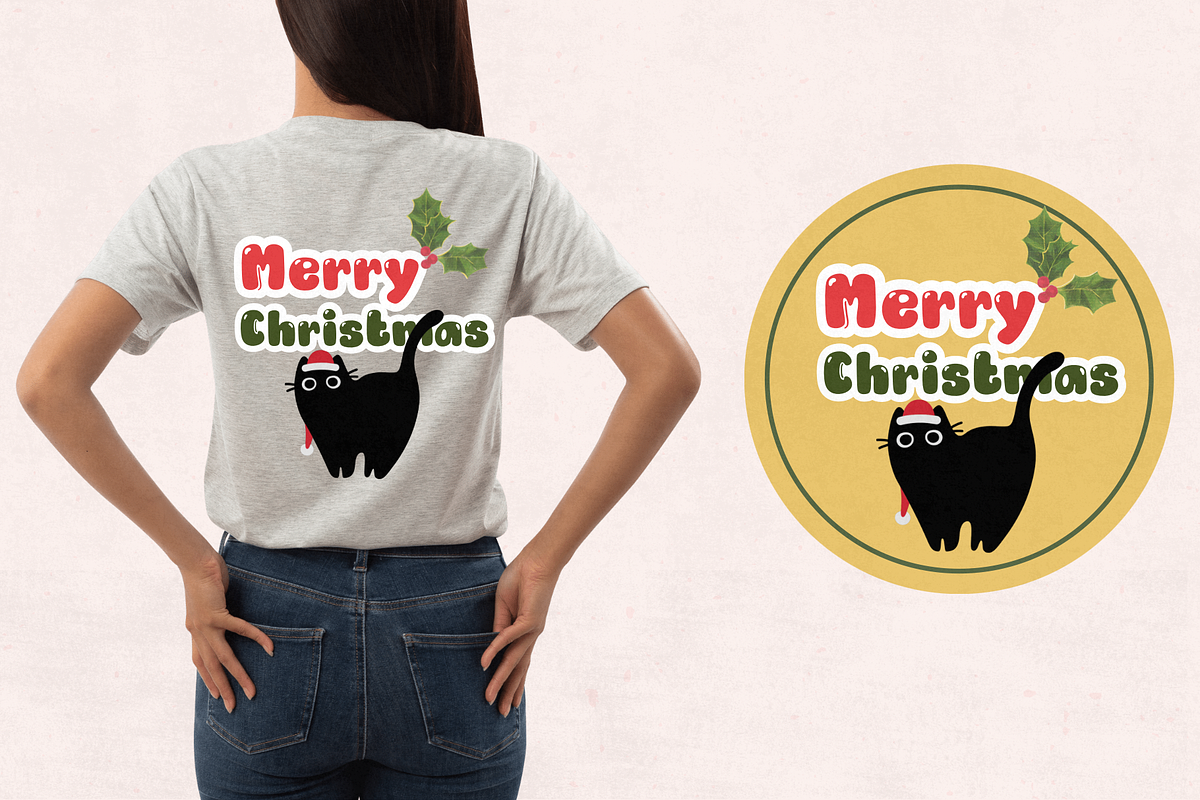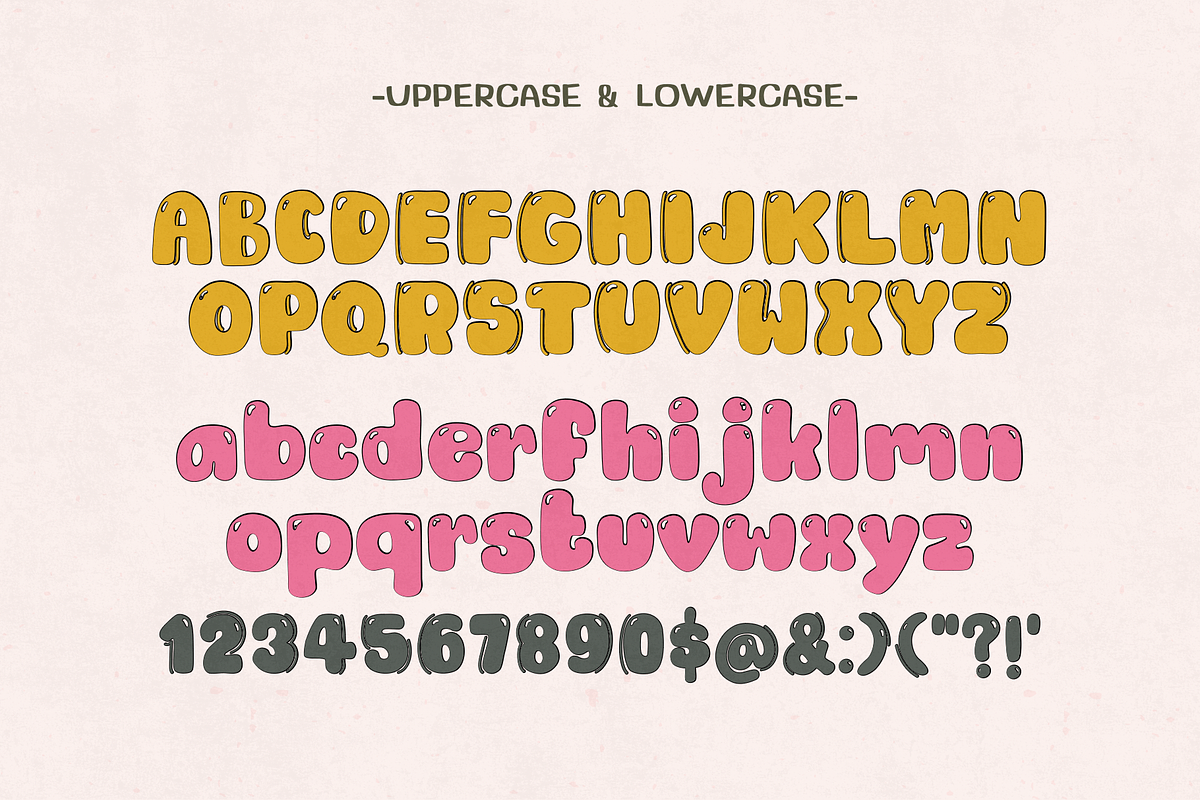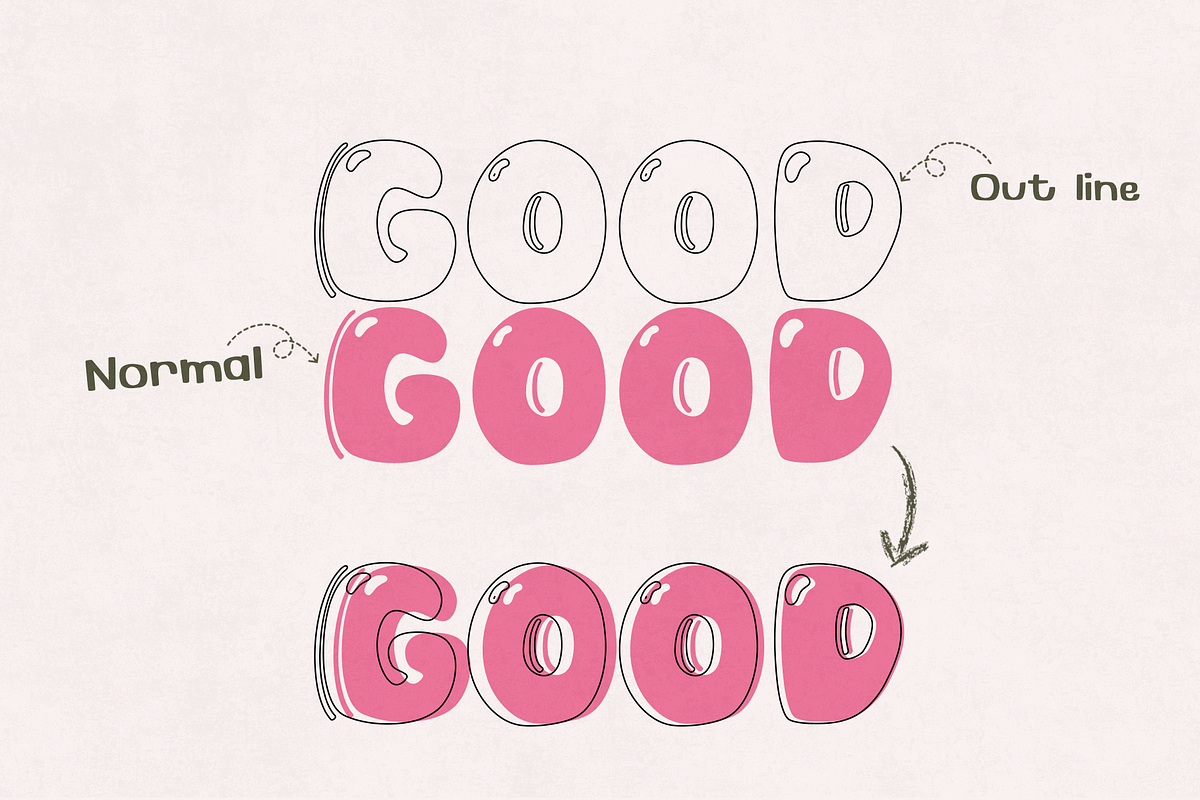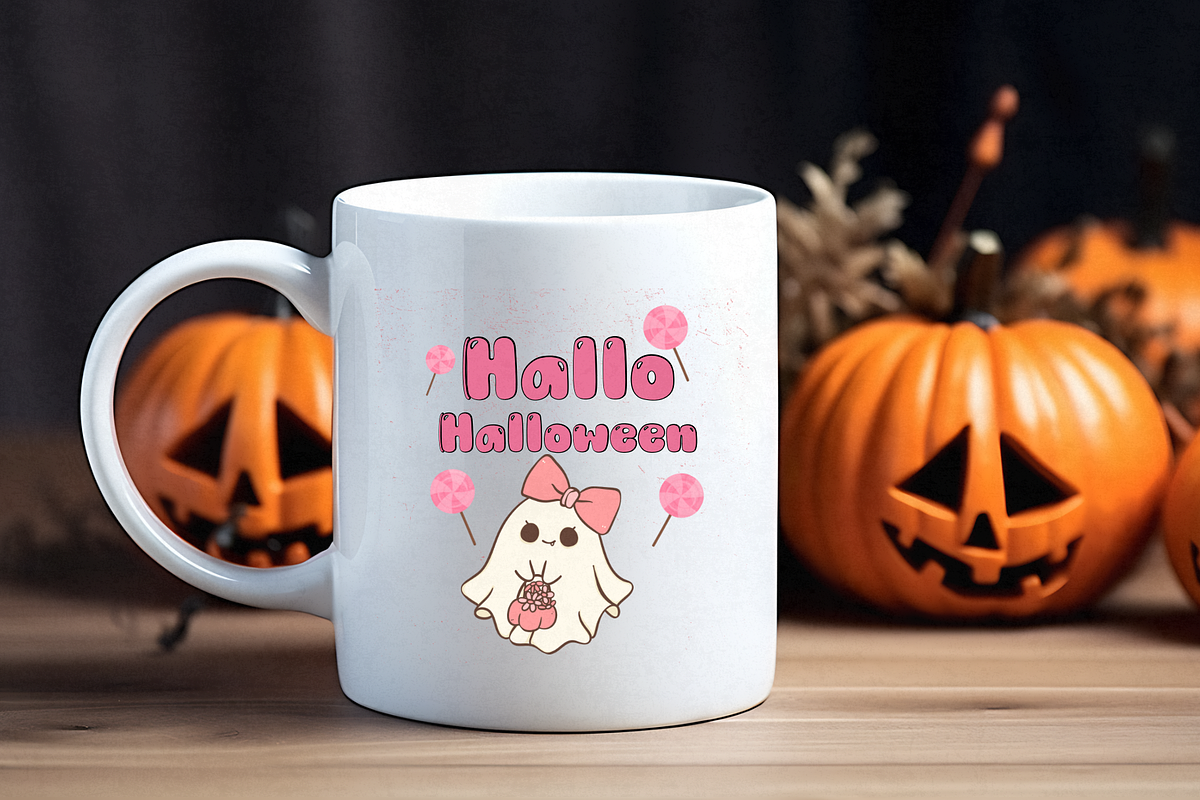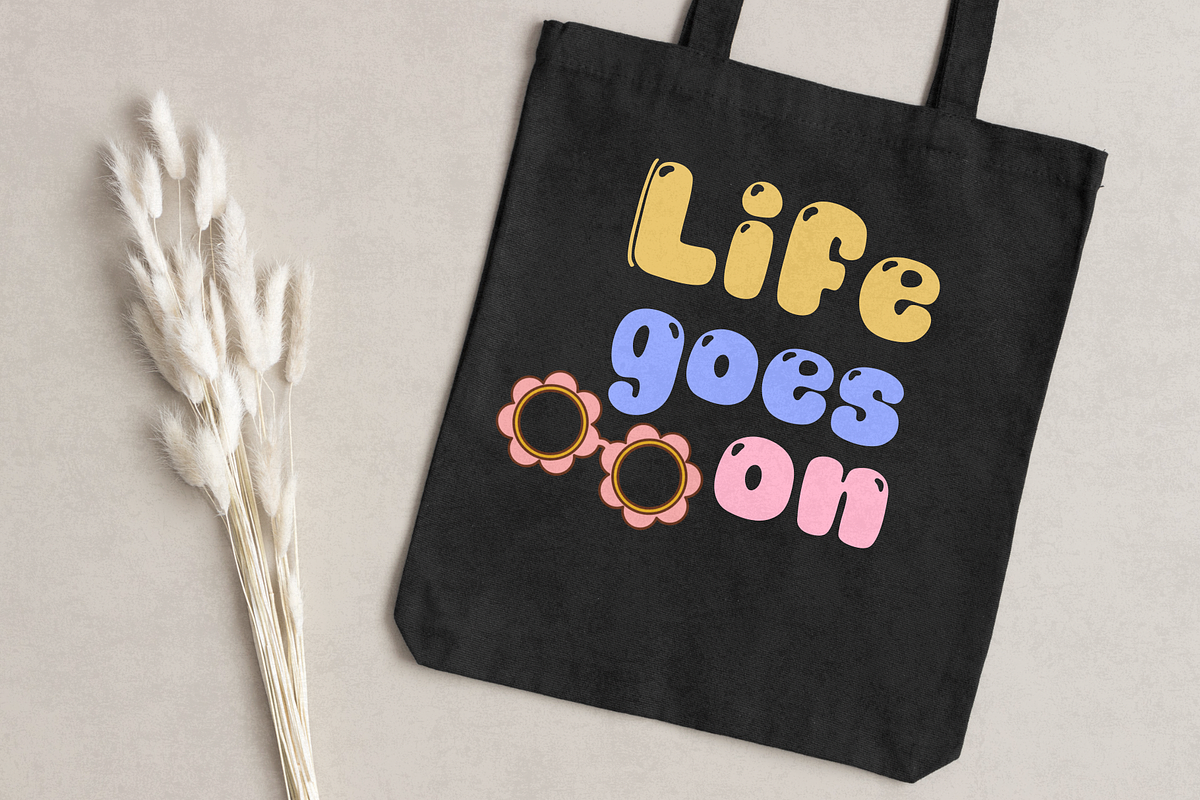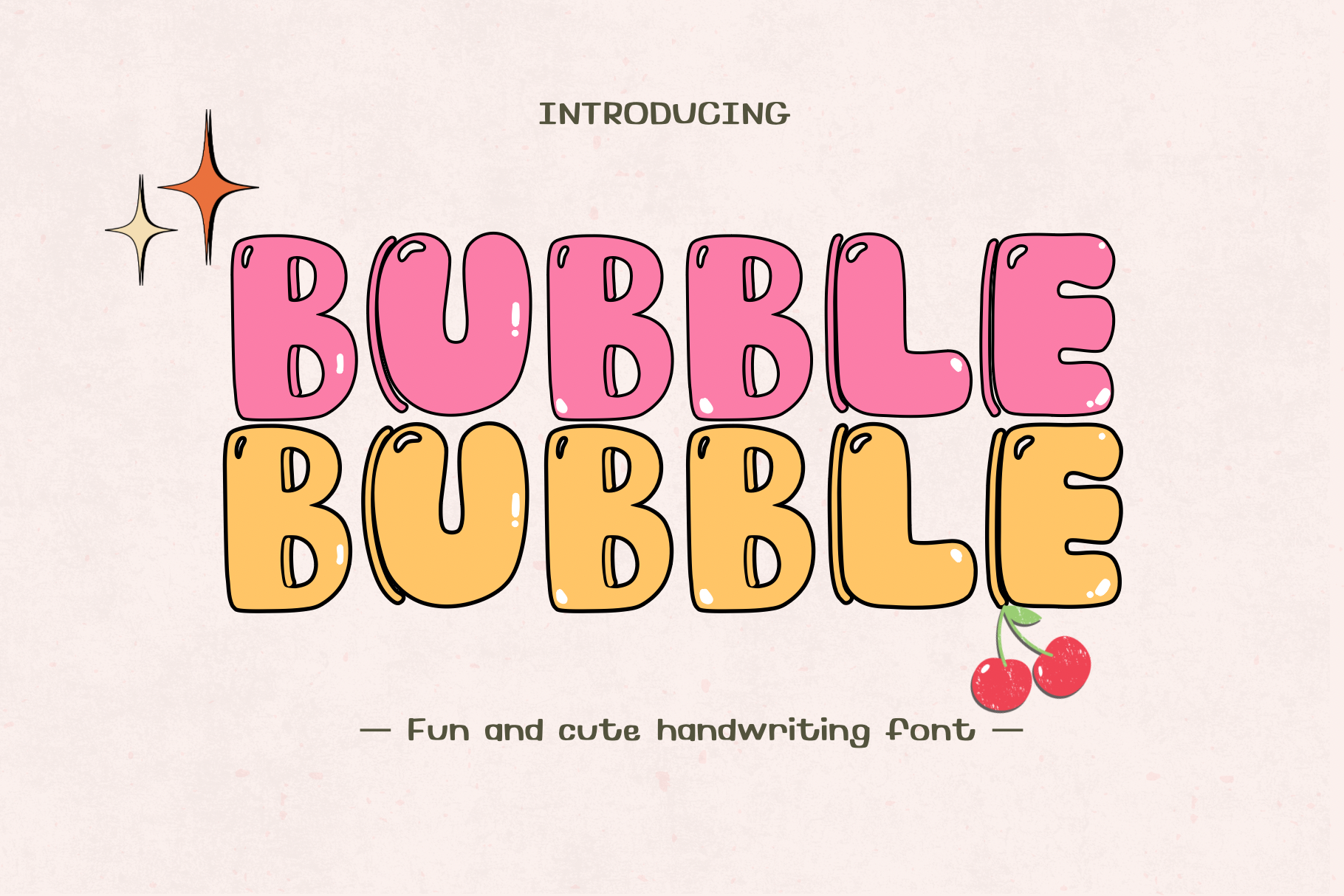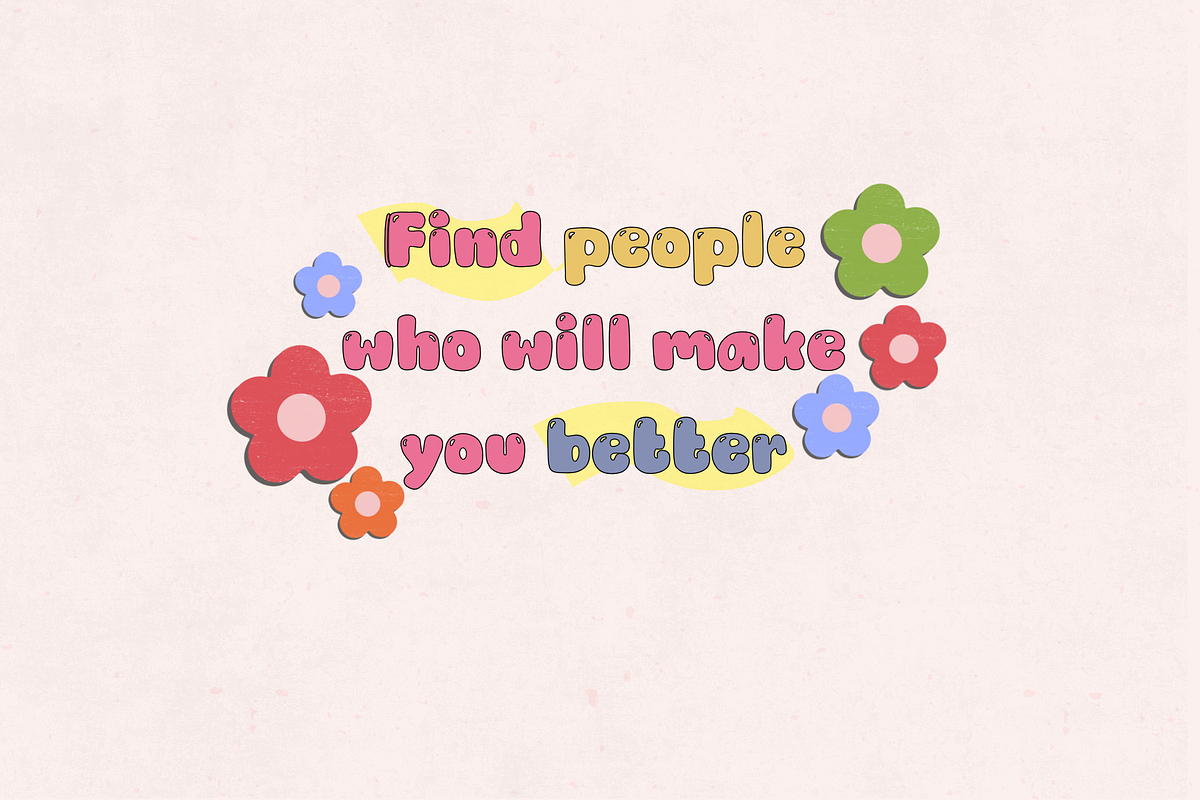
Bubble cute handwriting font
"Bubble cute display handwriting font .It's a cute font designed to evoke a sense of adorableness with its round and bold letters. Perfect for various design projects, whether it's logos , stickers, t-shirt, Canva ,procreate , social it adds a special and charming touch to your designs."